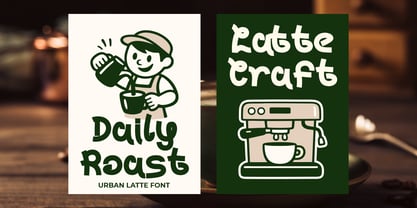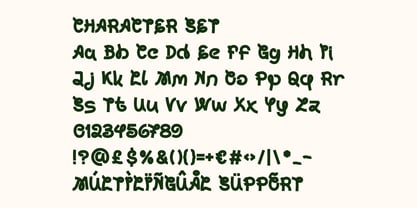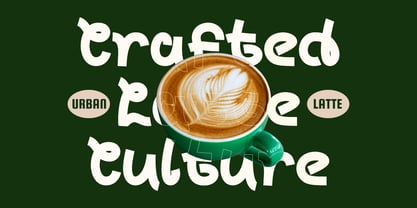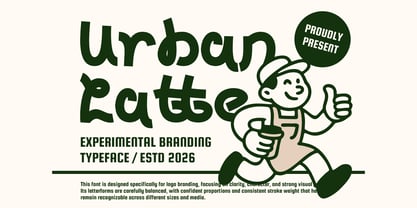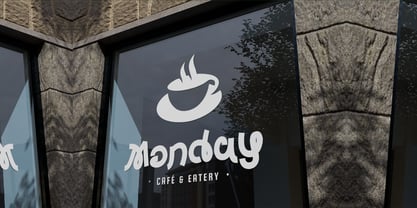
Urban Latte
by Shanaf
The Urban Latte Font Family was designed by Yesie Erma Yunita and published by Shanaf. Urban Latte contains 1 styles. More about this family
Urban Latte Experimental Branding Font delivers a bold, handcrafted personality for modern cafe identities. The letterforms feature thick strokes with slightly uneven edges and organic curves. Proportions feel compact yet dynamic, with moderate height and playful baseline shifts. Some characters lean subtly, creating a casual rhythm across words. Stroke weight stays solid and consistent, giving headlines strong visual impact. Corners appear rounded rather than sharp, enhancing the friendly tone. The texture feels natural, similar to hand-shaped lettering instead of geometric construction. This style blends experimental branding with urban charm. It sits between playful display and contemporary craft typography. Urban Latte Experimental Branding Font supports logos that need character and memorability. The shapes remain readable while maintaining expressive distortion. Designers can rely on its confident forms for bold statements. This font suits coffee shop branding, cafe logos, and artisan beverage businesses. It performs well in signage, packaging, and menu headlines. The strong weight makes it effective for posters, promotional ads, and storefront titles. Its expressive curves also fit stickers, book covers, greeting cards, and magazine headers. The character set supports creative crafting projects and branded merchandise graphics. The experimental tone works for urban coffee brands, roasteries, and specialty drink startups. It also fits restaurant concepts with casual and social atmospheres. Urban Latte Experimental Branding Font helps brands stand out in competitive food markets. Use it for logo systems, visual identities, and bold campaign headlines. The style balances warmth and structure, ideal for modern hospitality branding.
Designers: Yesie Erma Yunita
Foundry: Shanaf